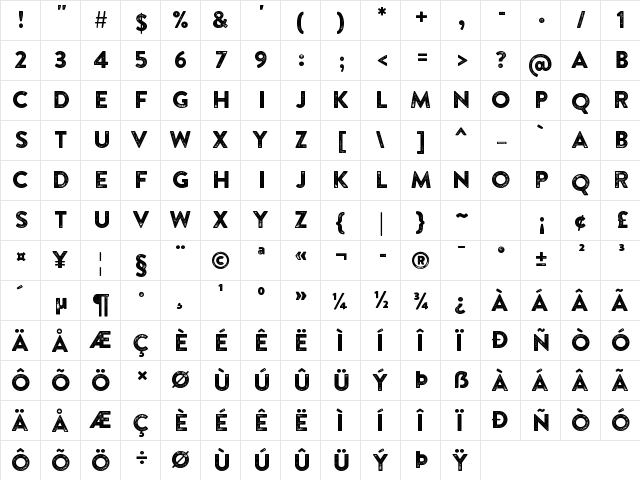
Brandon Printed Two
| Foundry | Hannes von Doehren |
| Designer | Hannes von Doehren |
Design Context for Brandon Printed Typeface
Brandon Printed takes a measured approach to typography — its balanced proportions and neutral character make it a reliable workhorse for both digital and print work.
Pro Tip: Pair Brandon Printed with a font of contrasting weight or personality to build a more expressive typographic hierarchy.